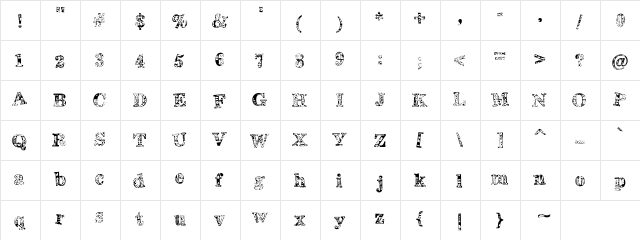
CK Newsman Regular
Design Context for CK Newsman Typeface
CK Newsman is a composed and adaptable typeface that performs quietly and consistently across a wide range of design contexts.